13 Best Script Wedding Fonts for Elegant Design Projects in 2026
As a designer, I love using script wedding fonts fonts to bring elegance, emotion, and a refined romantic feel into wedding design projects. This collection of 13 best script wedding fonts for 2026 features typefaces I personally use to create timeless, sophisticated, and visually harmonious stationery.
From graceful calligraphy-inspired scripts to modern handwritten lettering, each font was selected for its fluidity, readability, and ability to enhance luxury wedding aesthetics. These typefaces are perfect for invitations, save-the-dates, menus, bridal branding, signage, and complete wedding stationery suites.
I carefully choose typography that supports the story behind every celebration, helping each design feel personal, elegant, and beautifully memorable.
Simple Handwriting Wedding Font
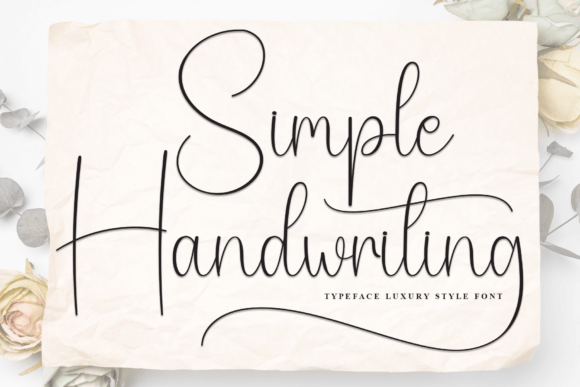
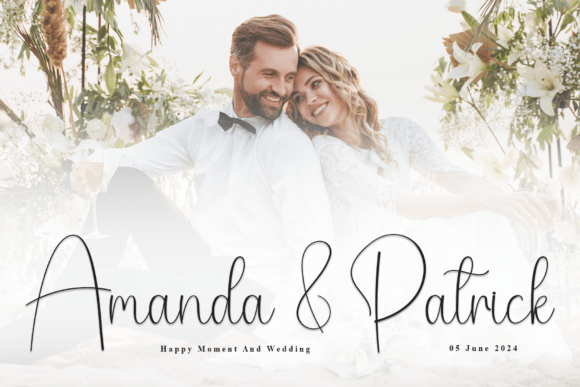
Simple Handwriting is a stylish and elegant script font with a natural handwritten feel. Perfect for wedding invitations, thank you cards, quotes, greeting cards, logos, and business cards, it adds a personal and refined touch to any design. Ideal for modern typography projects that require simplicity, charm, and effortless elegance.
Andalucia Wedding Font
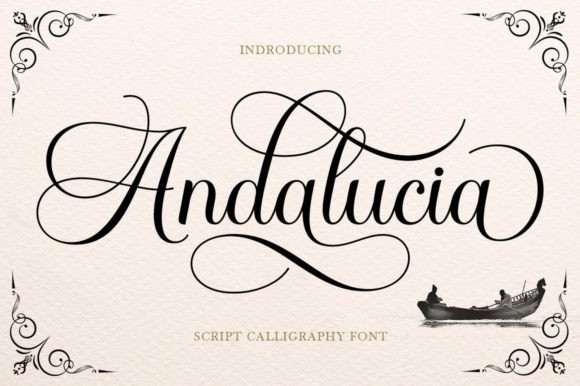
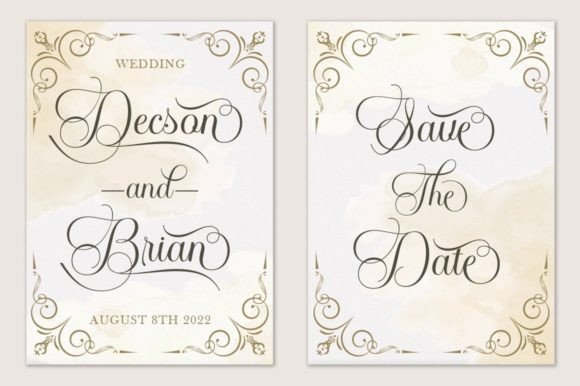
Andalucia is an elegant calligraphic script font that combines Copperplate calligraphy with modern hand lettering. Featuring beautiful alternate characters, it delivers a refined, feminine, and sophisticated style that is both clean and easy to read. Perfect for invitations, logos, fashion branding, menus, stationery, magazines, books, packaging, and wedding designs, Andalucia adds timeless elegance and graceful charm to any formal creative project.
Breathine Wedding Font
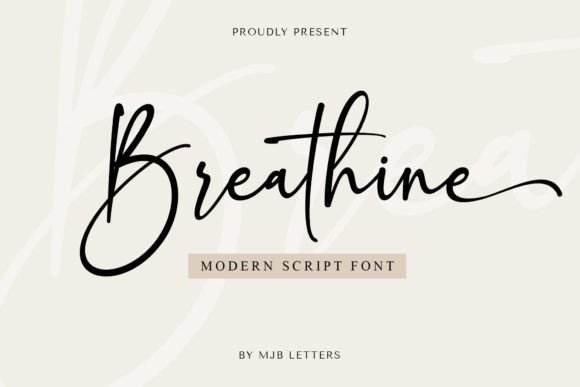
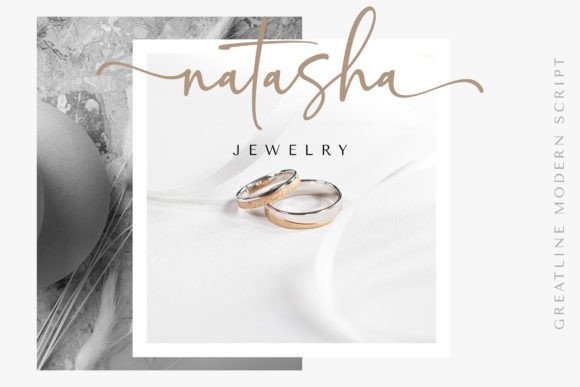
Breathine is a magical script font designed with a delicate touch of elegance and charm. Perfect for Instagram posts, branding, quotes, invitations, and DIY projects, it transforms any creative idea into a beautiful work of art. Ideal for modern handwritten typography, Breathine adds a graceful, stylish, and artistic feel to every design.
Merlina Darling Wedding Font
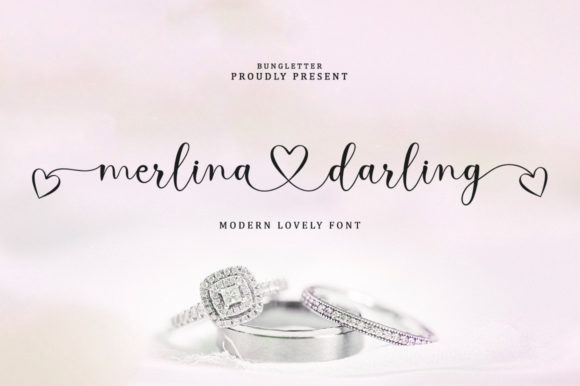
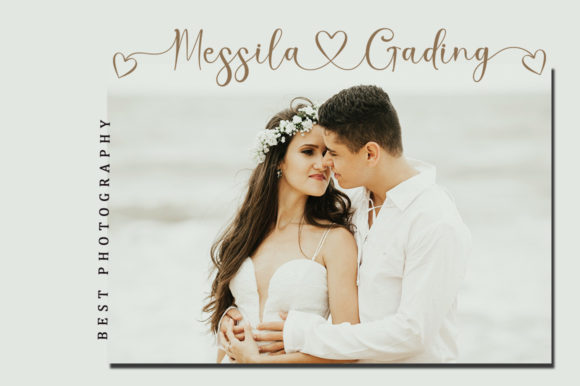
Merlina Darling is a modern calligraphy script font featuring a beautifully detailed design with heart-inspired connections within its letterforms. Elegant and luxurious, it is perfect for branding, wedding invitations, logos, quotes, packaging, and feminine design projects. This font adds a romantic and sophisticated handwritten touch, making every creative work feel graceful and refined.
Angelic Bright Wedding Font
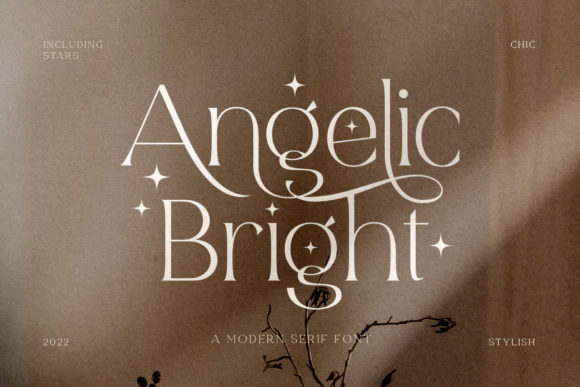
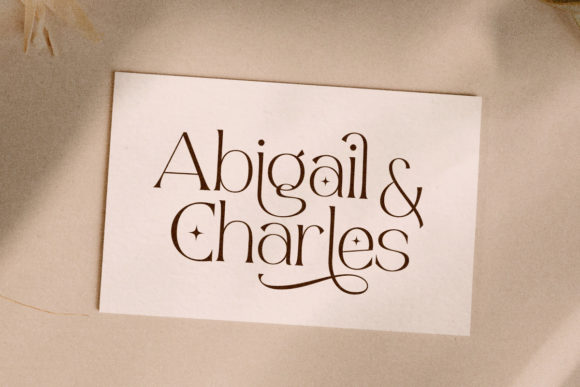
Angelic Bright is a modern serif font featuring unique curves and elegant details that bring a classy and refined look to any design. With a variety of stylish alternates, it offers great creative flexibility for logos, branding, quotes, invitations, packaging, and editorial projects. Perfect for sophisticated typography, Angelic Bright helps create memorable and visually stunning designs with a modern luxurious feel.
Blush & Bloom Wedding Font
Blush & Bloom is a chic and refined script font that exudes elegance and sophistication. Featuring stylish alternates and beautiful ligatures, it offers versatility for a wide range of creative projects. Perfect for branding, logos, wedding invitations, quotes, packaging, and social media, this font adds a graceful and luxurious handwritten touch to any design.
Modernline Wedding Font
Modernline is a simple yet elegant handwritten font with a charming and refined style. Its clean design makes it highly versatile, looking outstanding on both busy backgrounds and standalone headlines. Perfect for branding, logos, social media, quotes, invitations, and modern creative projects, Modernline adds a sophisticated and stylish handwritten touch to any design.
Cream Candy Wedding Font
Cream Candy is a beautiful modern script font featuring elegant swashes and 22 stylish ligatures. Designed to elevate any creative project, it adds a refined and decorative handwritten touch. Perfect for branding, logos, wedding invitations, packaging, quotes, and social media designs, Cream Candy brings a sweet, sophisticated, and luxurious feel to modern typography.
Samantha Signature Wedding Font
Samantha Signature is an elegant handwritten font that combines sophistication with a personal, stylish flair. Featuring graceful strokes and a refined feminine touch, it beautifully mimics a natural signature. Perfect for branding, logos, invitations, greeting cards, quotes, and social media, this font adds timeless charm and a polished handwritten feel to any creative project.
Fairy Dreams Wedding Font
Fairy Dreams is a minimalist modern serif font featuring elegant alternates and decorative swashes. Designed for simplicity and sophistication, it is perfect for branding, logos, wedding invitations, packaging, and editorial designs. Its clean and refined style brings a graceful and contemporary touch to any creative project, making it ideal for elegant modern typography.
Calestine Calligraphy Wedding Font
Calestine Calligraphy is a delicate and elegant handwritten font with beautifully balanced letterforms. Its refined and graceful style makes it a true typographic masterpiece. Perfect for branding, wedding invitations, logos, quotes, packaging, and social media designs, it adds a versatile and sophisticated touch to any creative project, helping you craft stunning and memorable visuals.